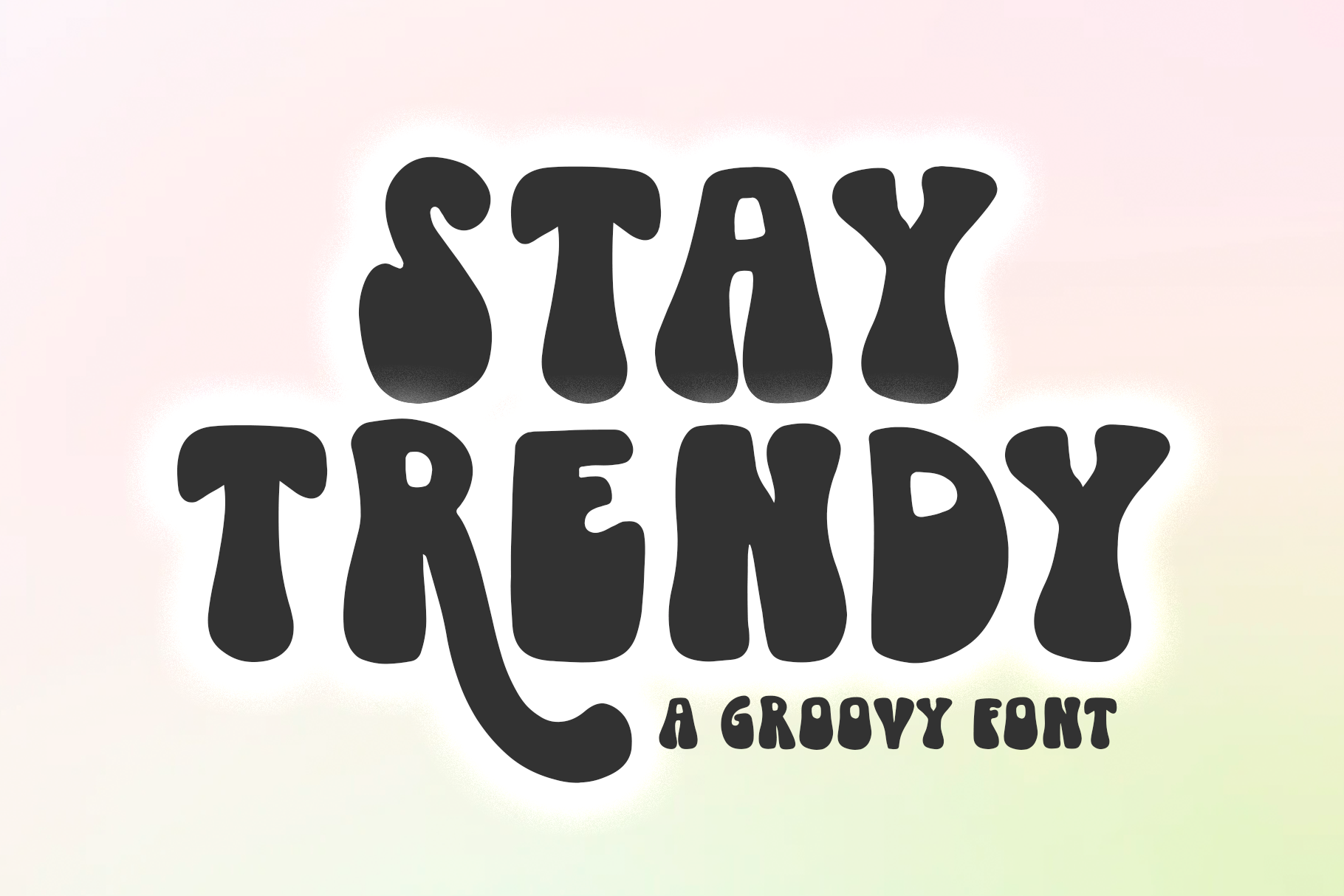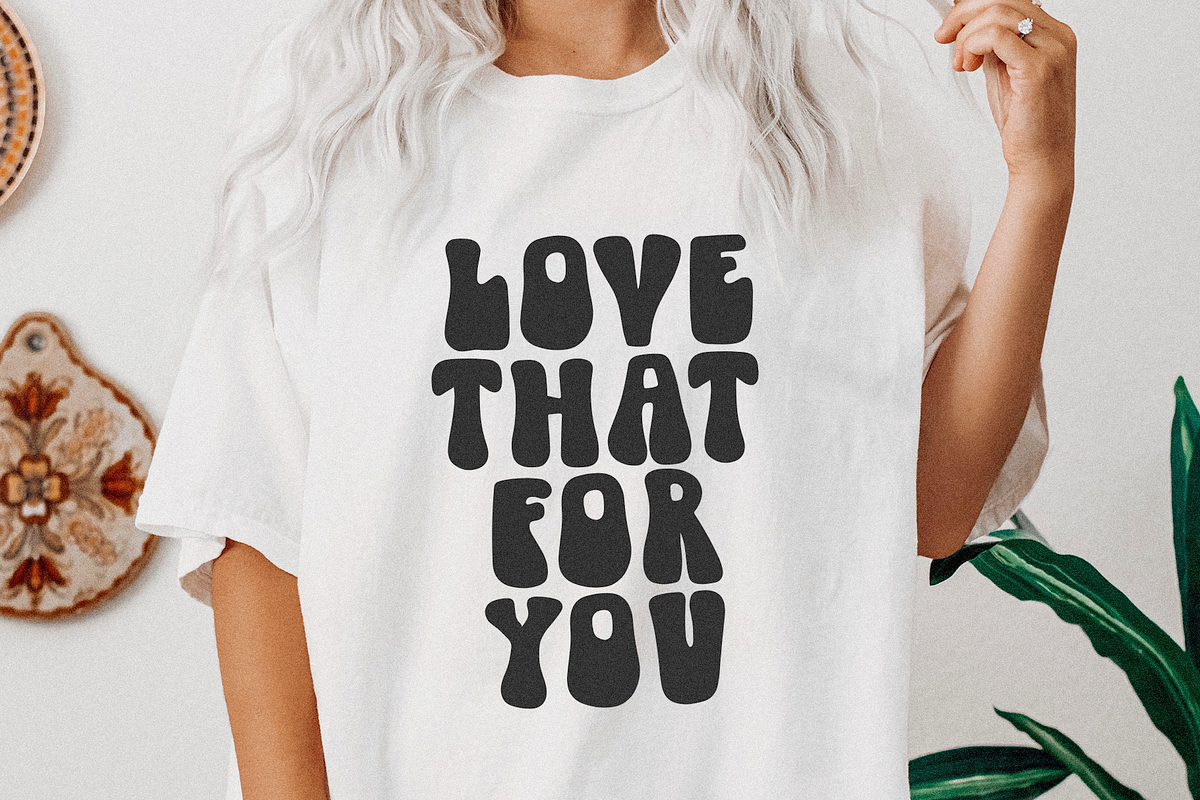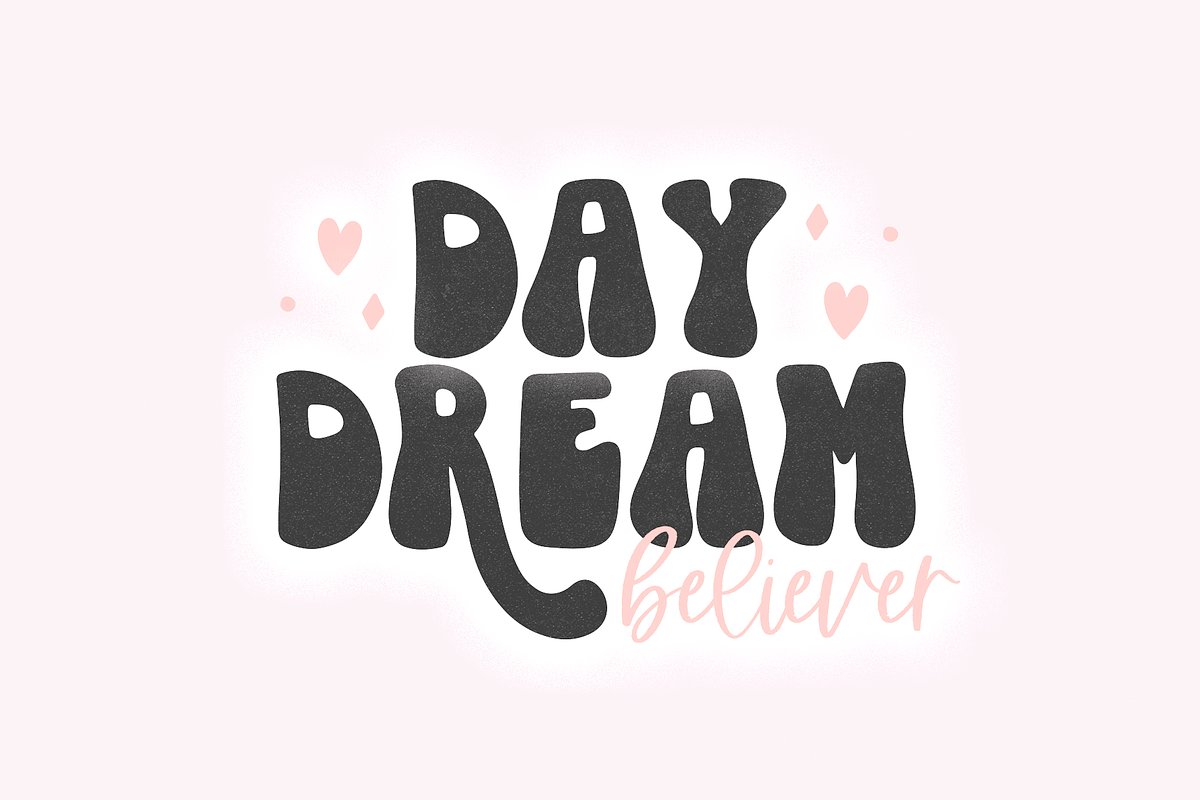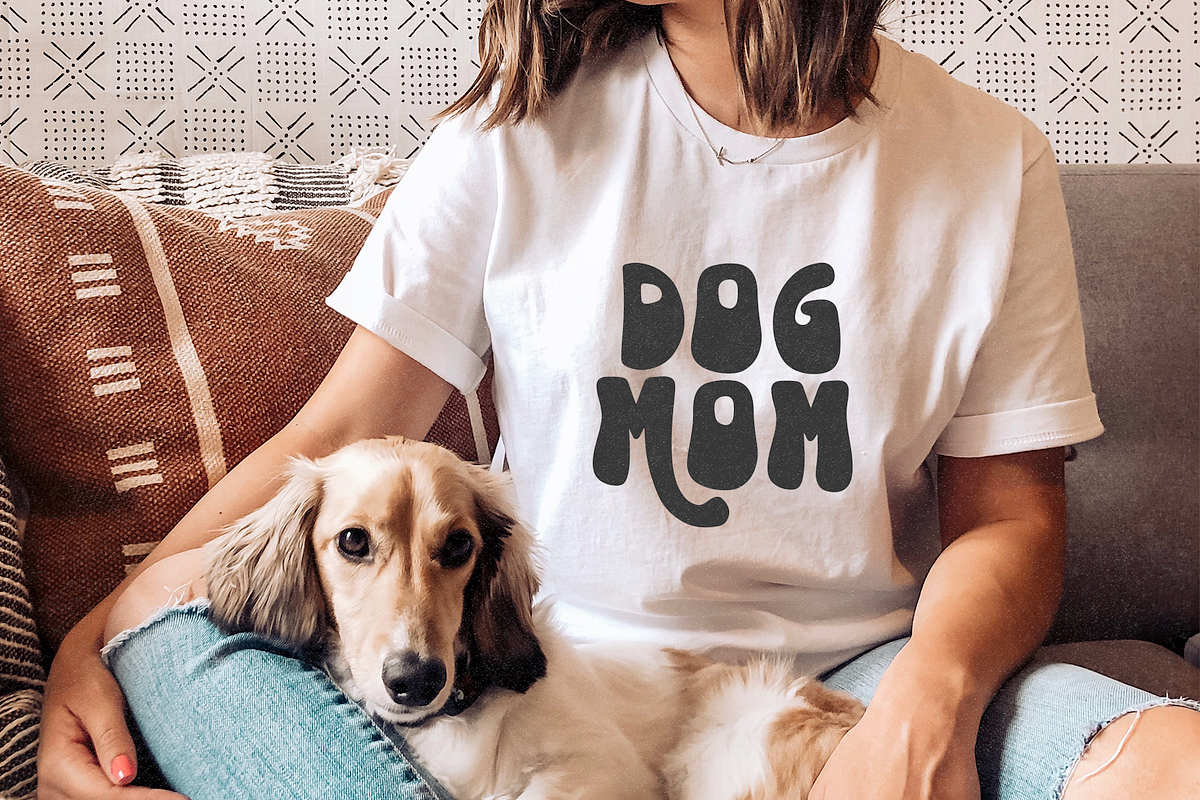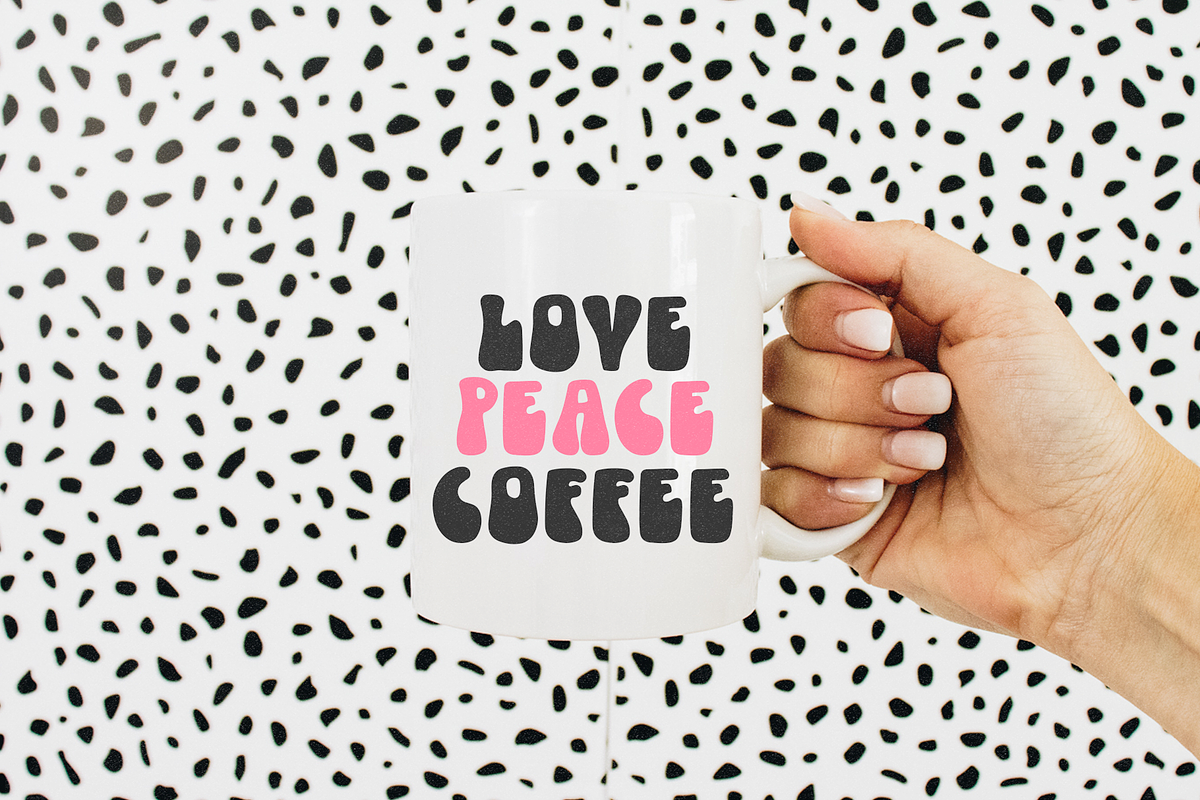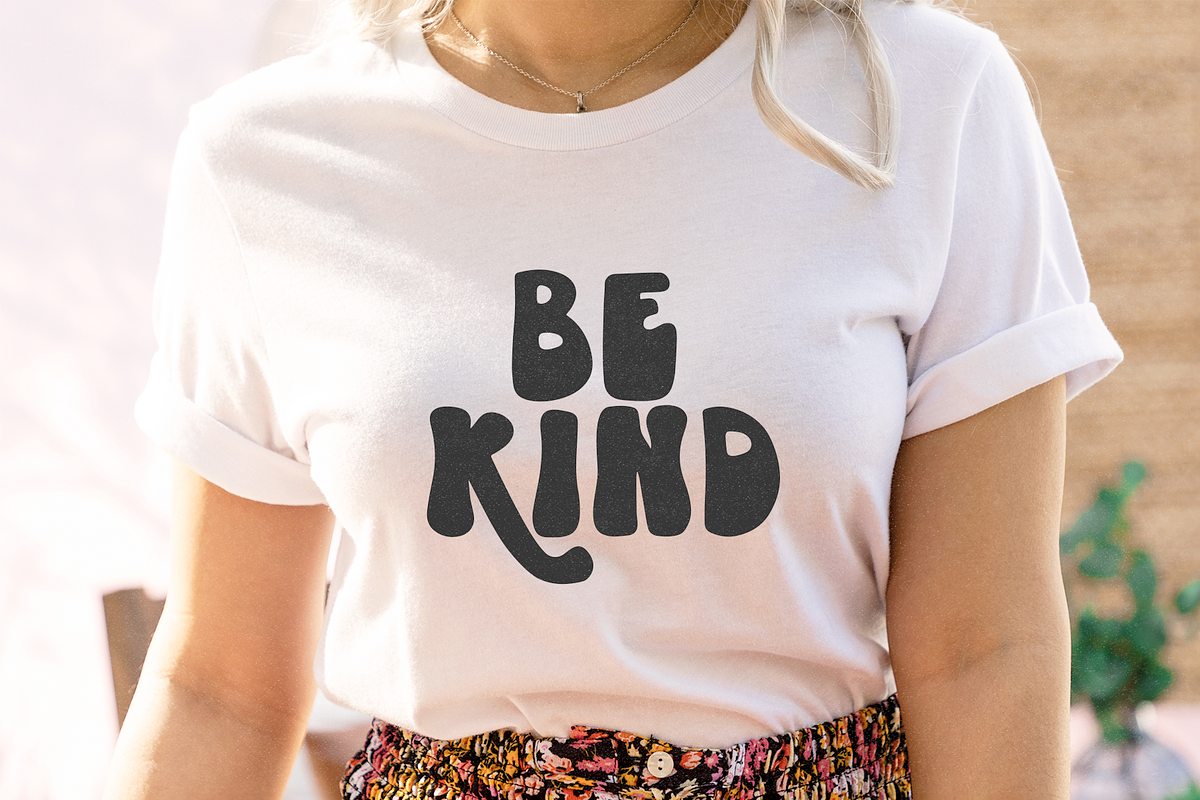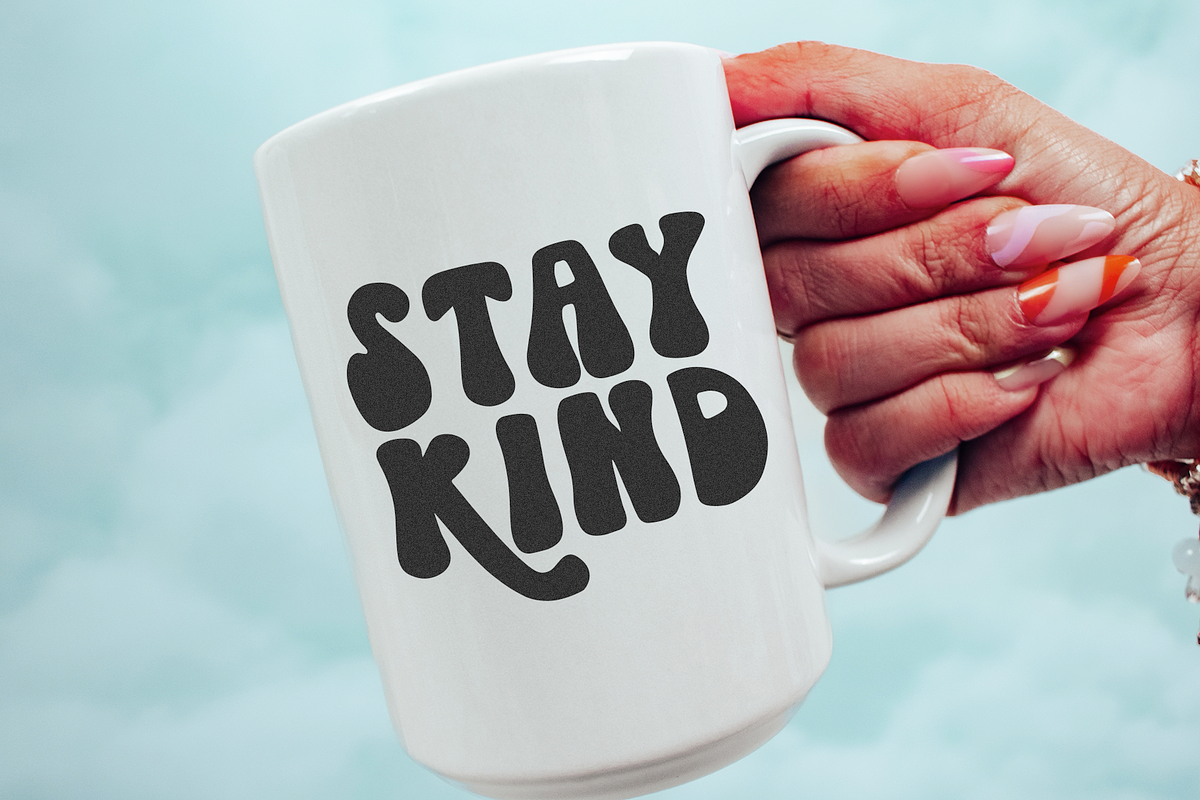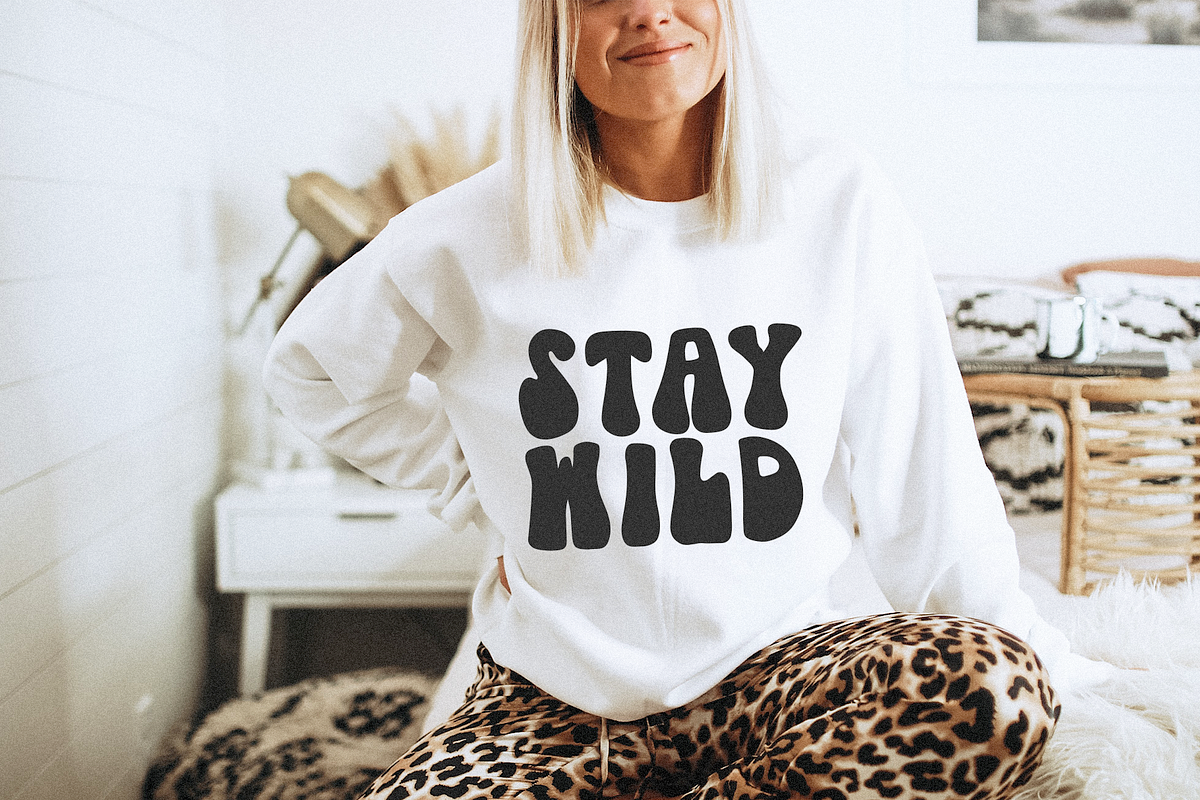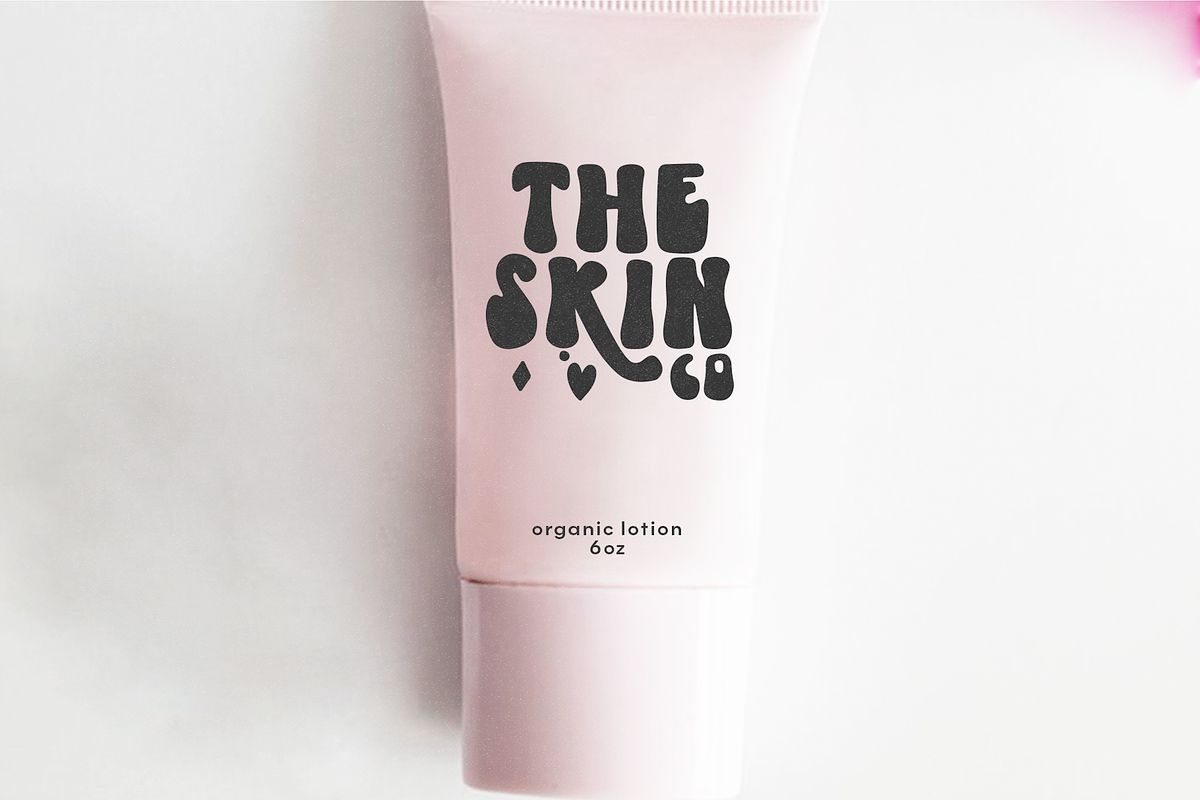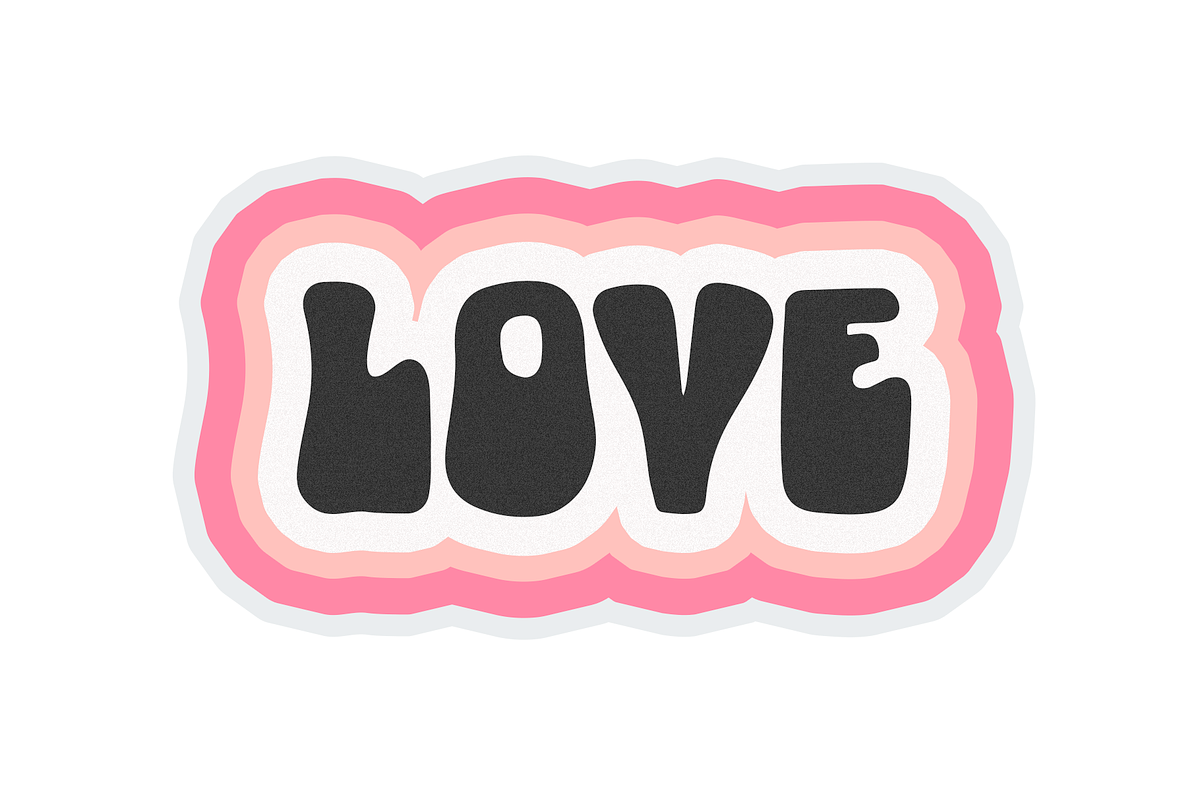
Stay Trendy | Boho Groovy Font
Stay Trendy is a groovy handwritten font.
This font is perfect for all of your craft projects, stickers, shirts, posters, quotes and more!